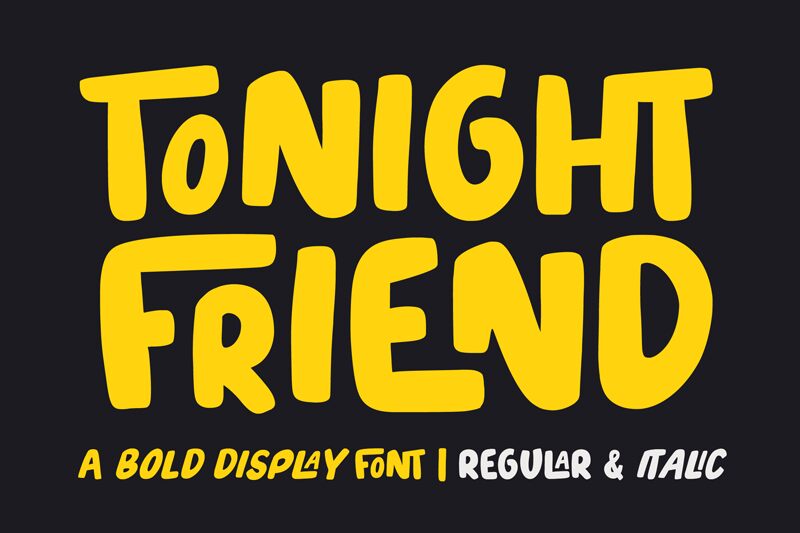
Tonight Friend, designed by Ahwe Project, bursts onto the creative scene with its bold and playful essence. This display font embodies a cartoon style that is as charming as it is impactful, offering an aesthetic that is both friendly and eye-catching. Its sturdy build and whimsical curves invite a sense of fun and creativity, making it an excellent choice for projects that aim to engage and entertain.
The robust weight of Tonight Friend ensures that your message stands out, while its distinct character shapes are imbued with a sense of joviality-perfect for injecting personality into everything from festive invitations to dynamic advertisements. Whether you're crafting compelling headlines or looking to add a touch of playfulness to your branding, Tonight Friend offers versatility wrapped in an irresistibly fun package.
Tonight Friend